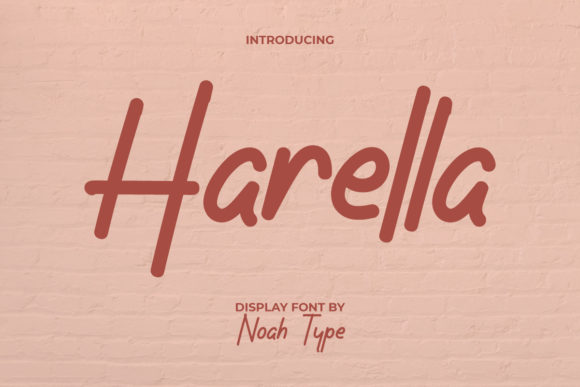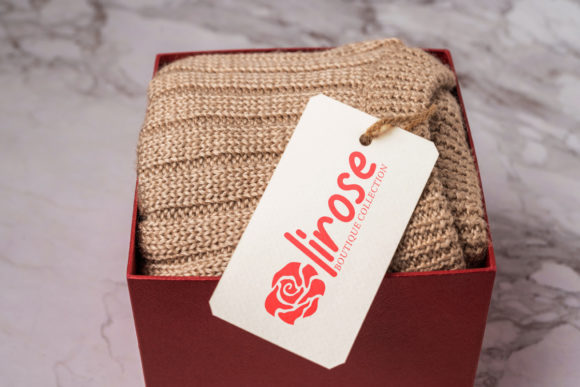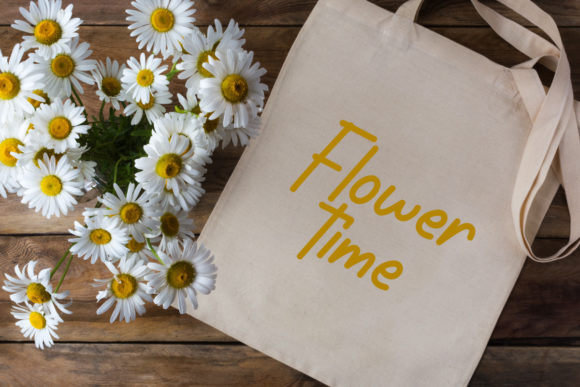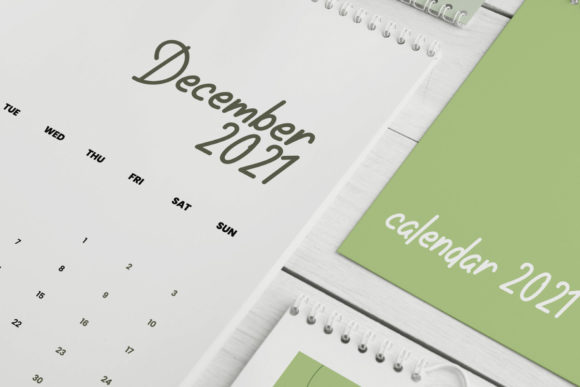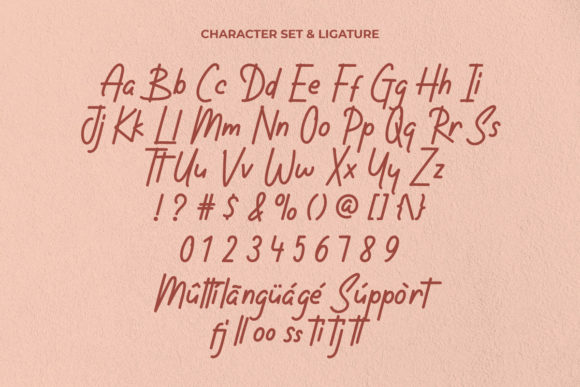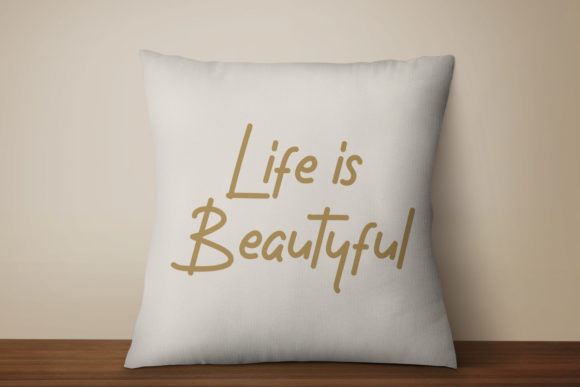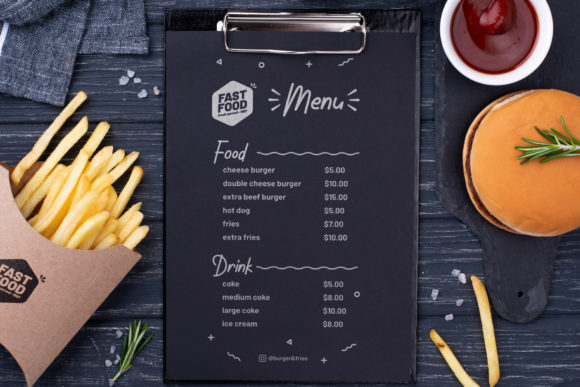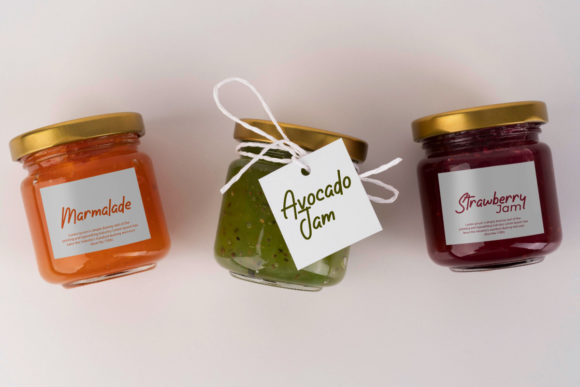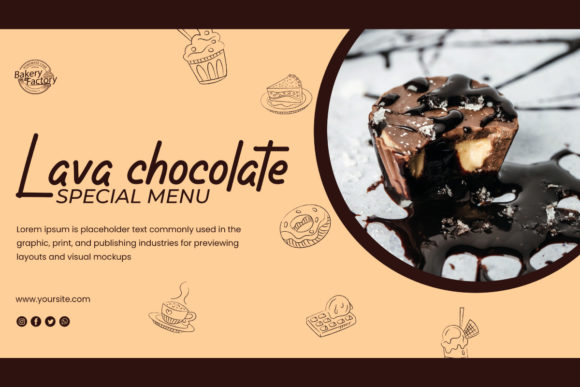
Harella Font
About Harella Font
Harella Font is a beautiful and elegant script font that was carefully crafted to give a natural look to any creative project. This font is for anyone who needs a handwritten touch to their minimalist and casual designs. It will be awesome to use for coffee shops, invitations, movies, children’s books, signage, titles, and many more.